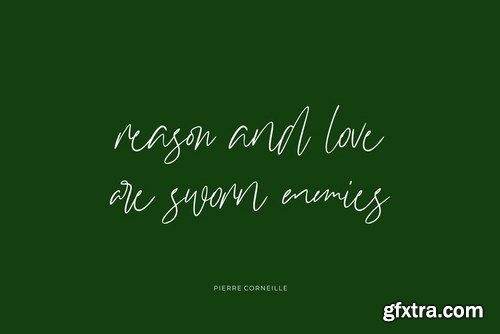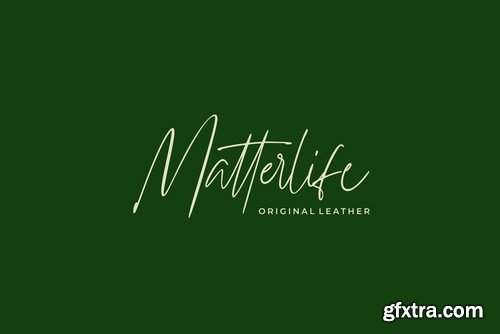
This Font can be used for any variety of purposes, such as: Signature, Photography, Wedding Ceremony, Invitation, Packaging, Logo Type, Branding Design, Fashion and also can be used for Personal purpose.